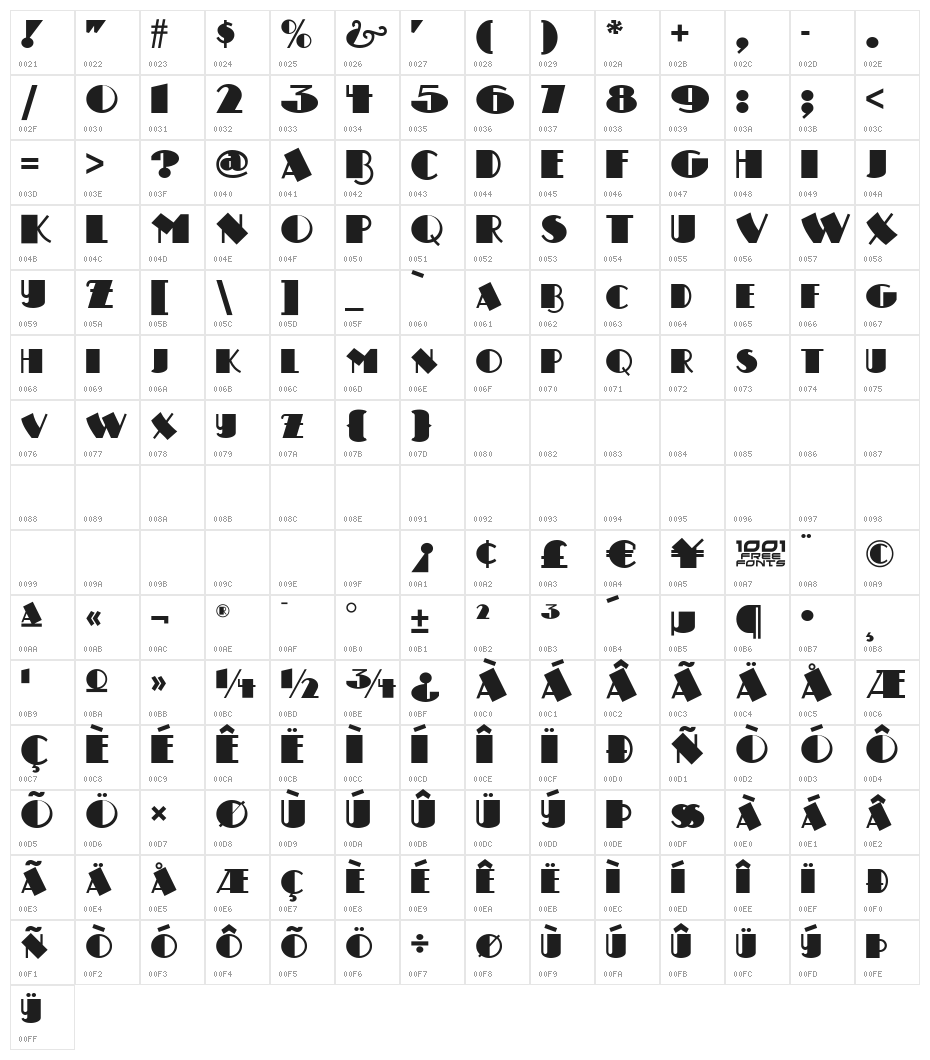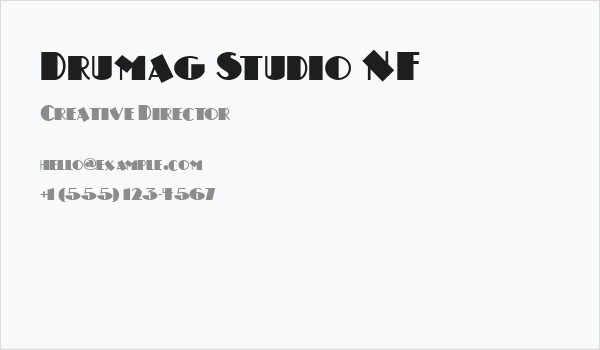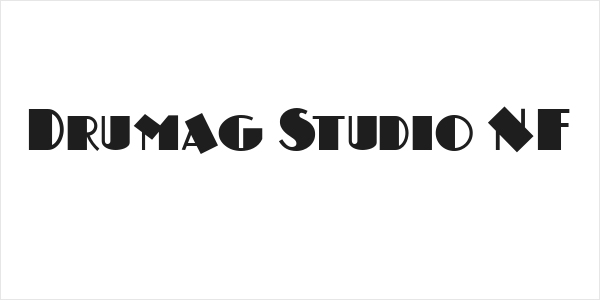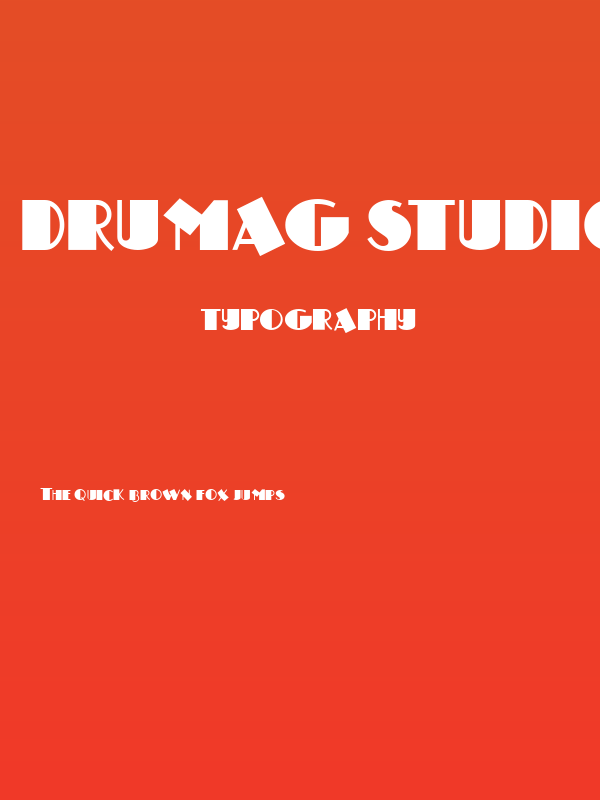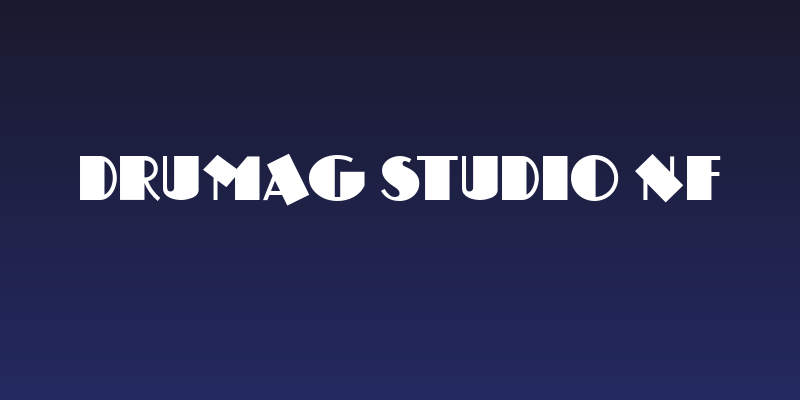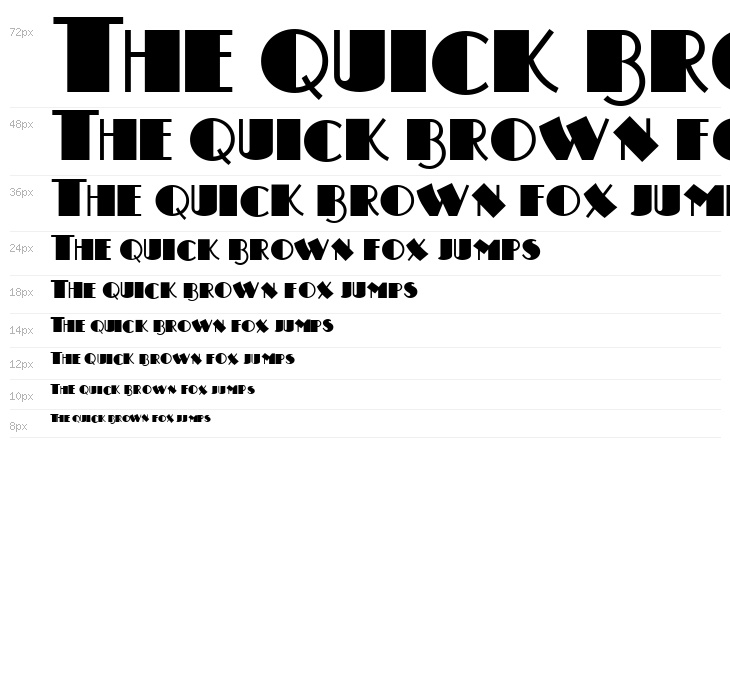
Drumag Studio NF Font
Drumag Studio NF Description
This font features a bold and striking design with geometric shapes and sharp angles. The uppercase letters are characterized by their strong presence and unique cutouts, creating a sense of movement and modernity. The lowercase letters maintain the boldness while introducing more curves, adding a playful contrast. Numbers are equally bold, with a consistent weight throughout. Special characters are creatively designed, maintaining the overall geometric and bold theme. This font is perfect for making a statement and capturing attention.
| Proposed Projects | Ideal for posters, branding, headlines, and any project requiring a strong visual impact. |